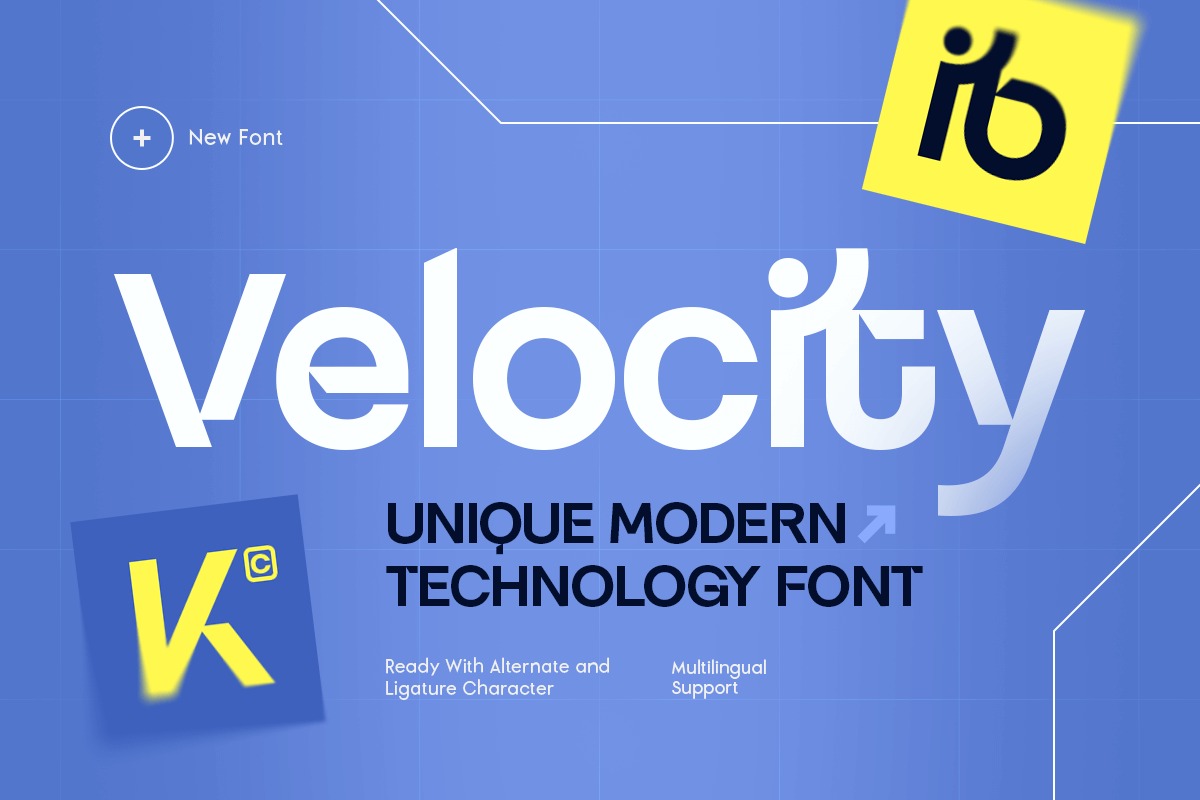
Velocity – Modern Techno Font
Velocity – Modern Techno Font is a flexible and reliable font created to fit multiple design needs, from branding and packaging to social media and editorial layouts. Velocity – Unique Modern Technology Font is a forward-thinking display typeface crafted to express speed, precision, and digital innovation. Inspired by advanced technology systems and modern tech branding, Velocity is designed for projects that demand a distinctive and futuristic visual character.
With its sharp geometry, dynamic structure, and unique letter details, Velocity delivers a strong technological presence while maintaining clarity and legibility. The design emphasizes movement and progression, making it ideal for brands focused on innovation and performance.